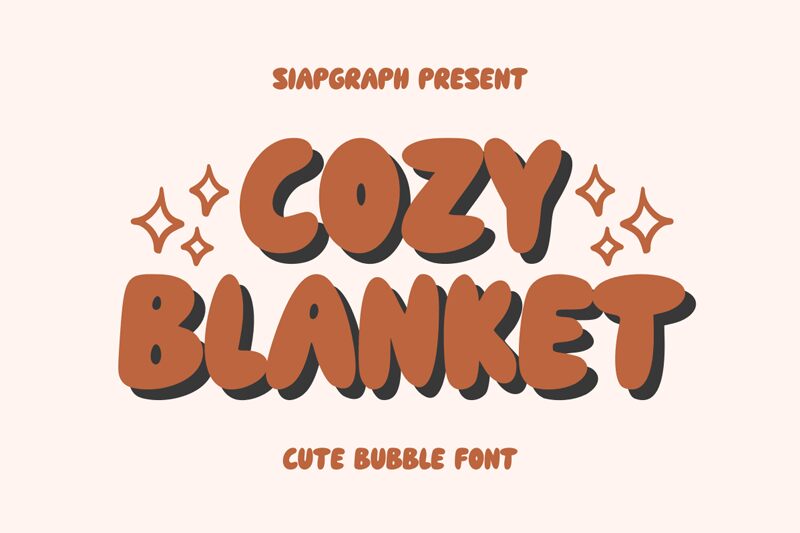
Cozy Blanket font by Siapgraph is a cartoon-themed typeface with a playful font with soft edges agreeable to the eye. This free font brings a modern touch to cartoon typography influenced by the styles that we used to see and love when we were younger.
In digital and printed designs, Cozy Blanket can be of major value for effortless engaging presentations. Warm in nature and whimsical in style, Cozy Blanket can present individuals to social media pages and posts, branding designs and logos for cafes and bakeries, as well as packaging items and labels for cosmetics and food-related products.
Use it for greeting cards or invitations where every single word matters, or take your creative work even further and create digital typography-inspired artwork or animatic projects related to music.